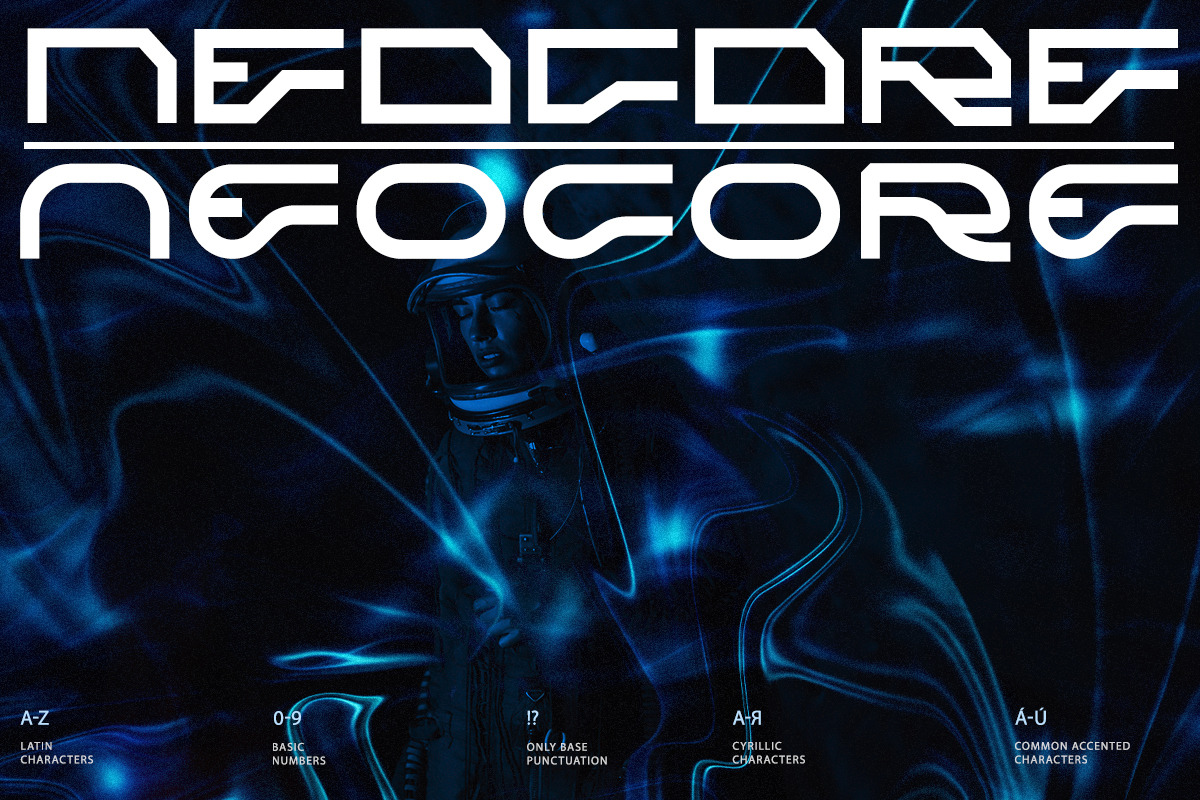
Say hello to Neocore – the perfect font for all your modern and techy designs! With its clean lines and sleek style, Neocore is the ideal choice for everything from websites to social media graphics. Its range of weights and styles gives you plenty of options to choose from, so you can find the perfect fit for your project.
- A-Z
- A-Я
- Common accented characters
- 0-9